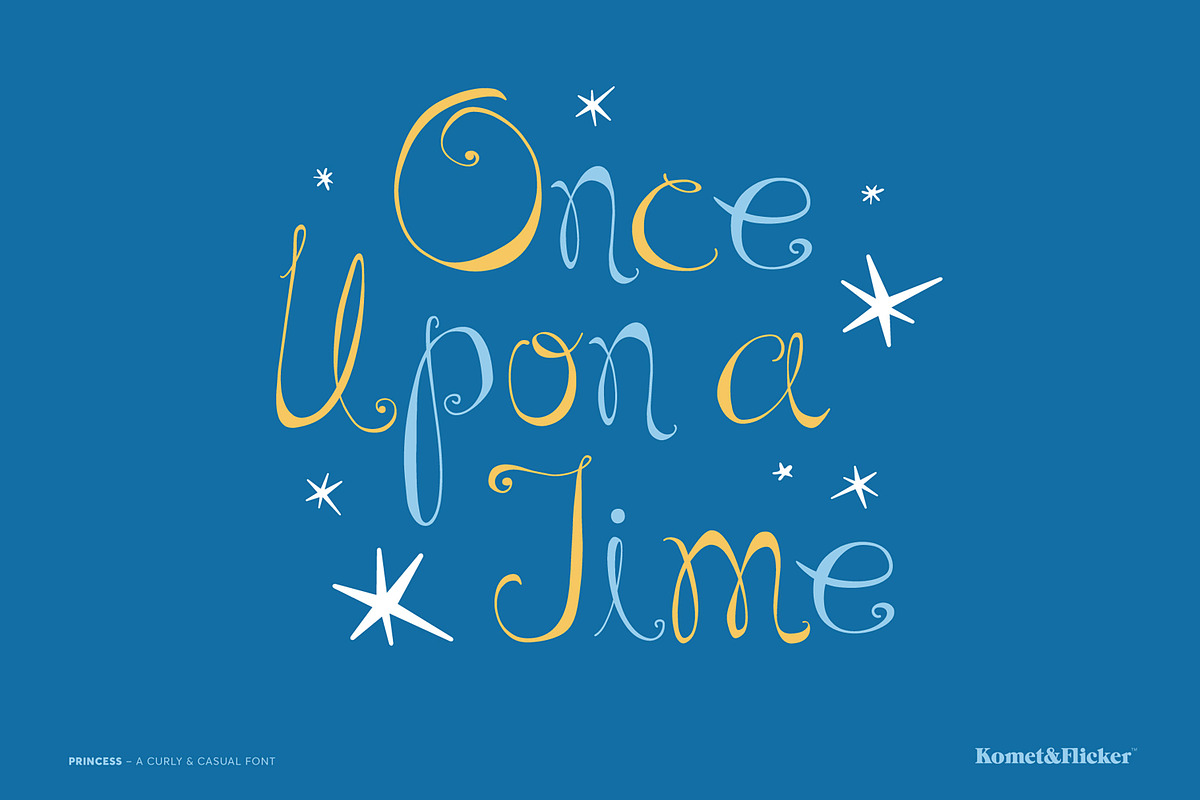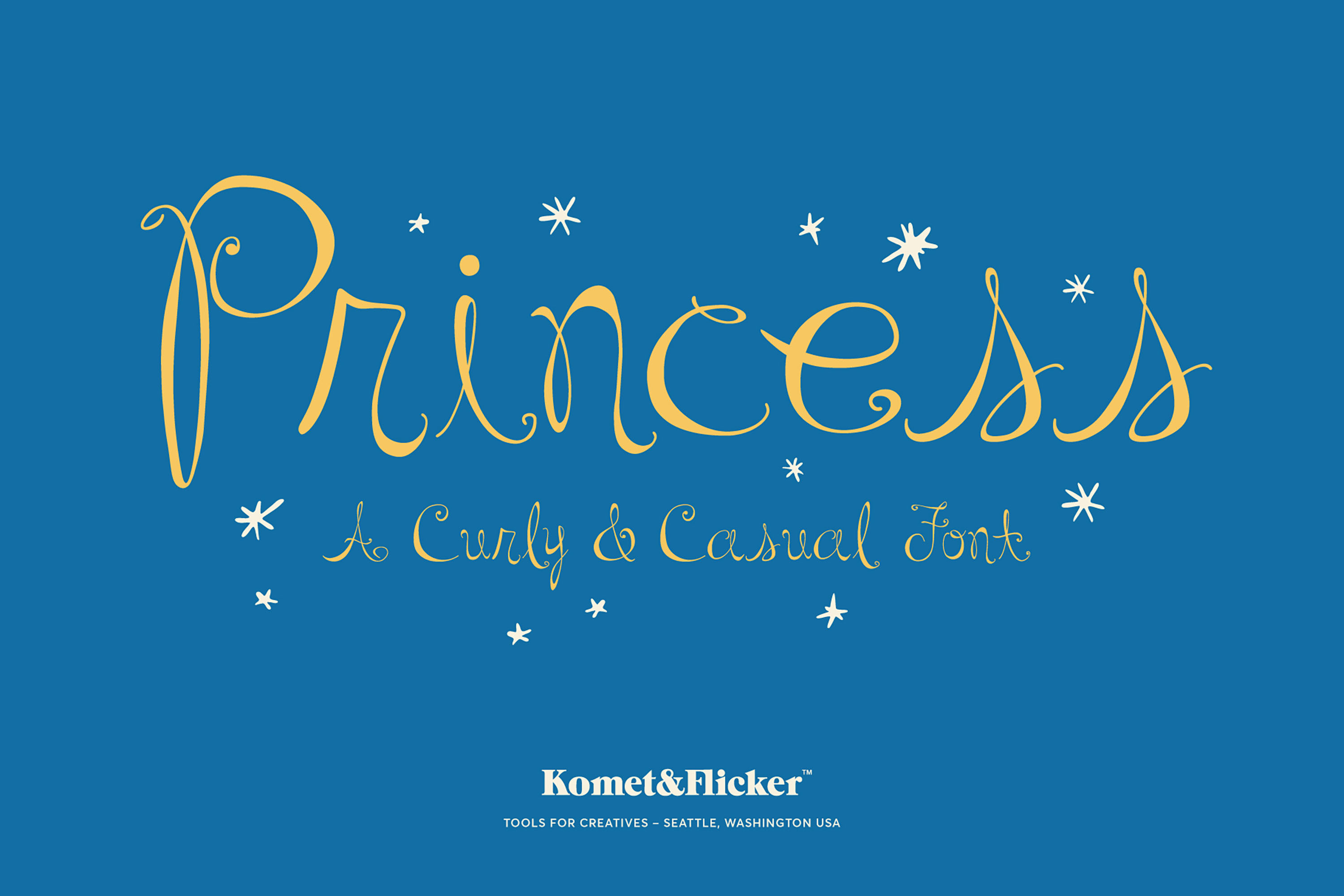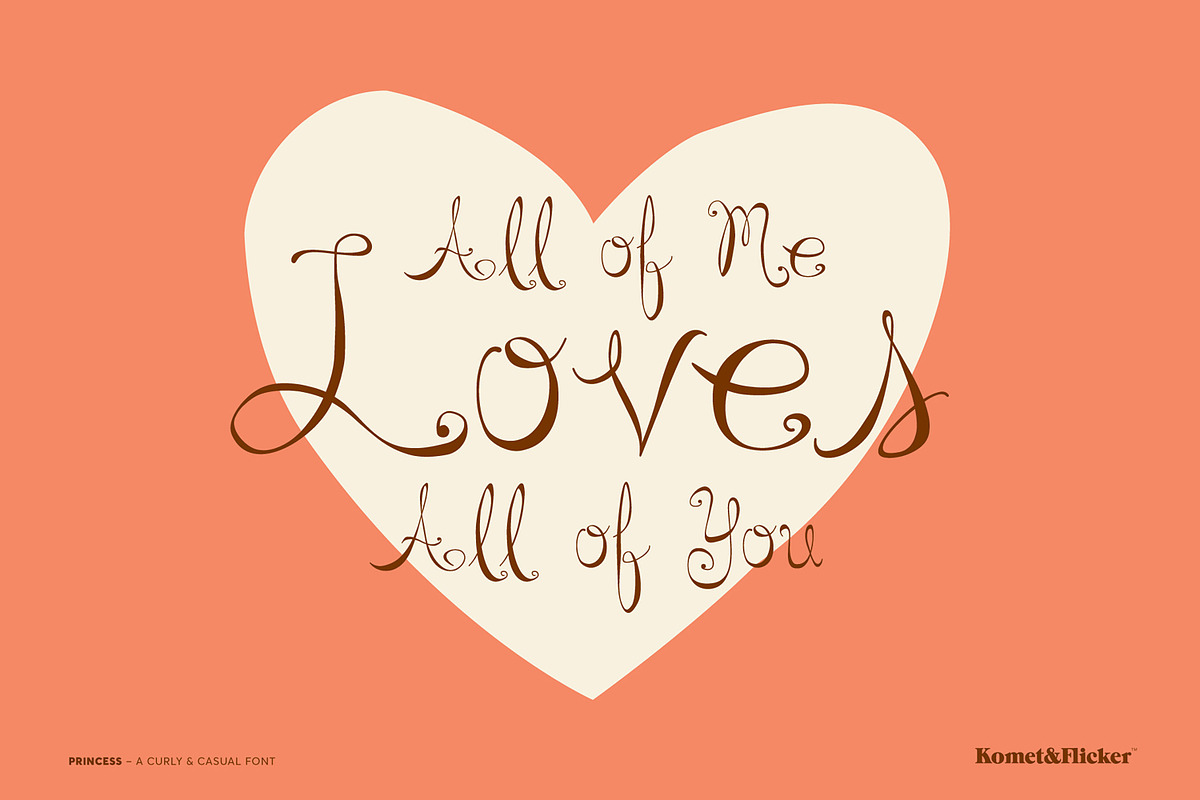
Princess – A Curly & Casual Font
Princess has a whimsical fairy-tale feel and works great anywhere you want to communicate a little special design magic! The delicate hand-drawn forms also lend themselves to fashion or holiday themed designs. This font includes a set of custom eleven ligatures as well as accented characters, numbers, punctuation, and symbols.
THIS FONT INCLUDES
- Full A-Z uppercase and lowercase basic latin characters
- Select European specific characters
- Set of 11 custom ligatures
- Numbers, punctuation, and select symbols